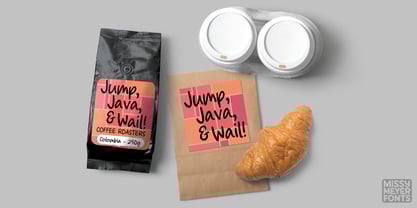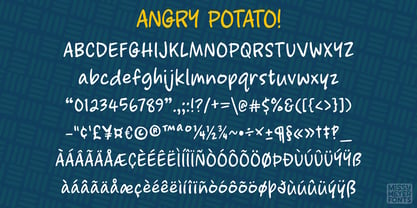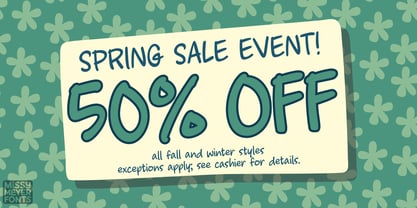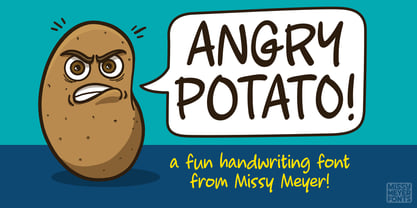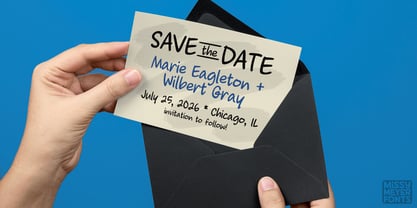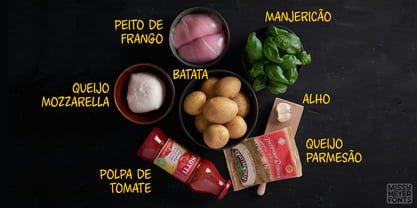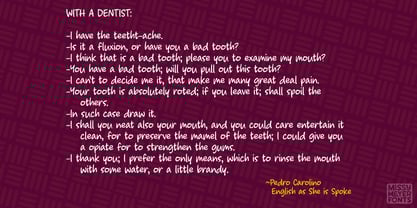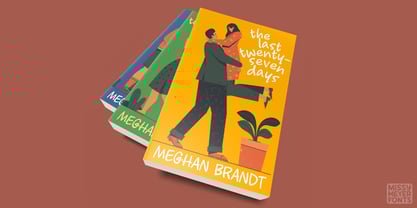
Angry Potato
by Missy Meyer
A lot of the handwriting-style fonts I make are more on the childlike side. For this one, I wanted to go a bit more adult, but still keep the fun vibe. And so, here's Angry Potato! It's a casual handwriting font with both uppercase and lowercase; a bit on the taller and narrower side, with a slightly varying stroke weight.
Smooth for cutting, stylish for print, it's a font that can do it all: logos and branding, packaging, fun designs on shirts or mugs, digital designs, social media, book titles, videos, games, and more!
Angry Potato includes the full Basic Latin character set and the full Latin-1 Supplement set, plus additional characters so that it can support not only English, but a number of other languages including French, Spanish, Italian, German, Portuguese, and more!